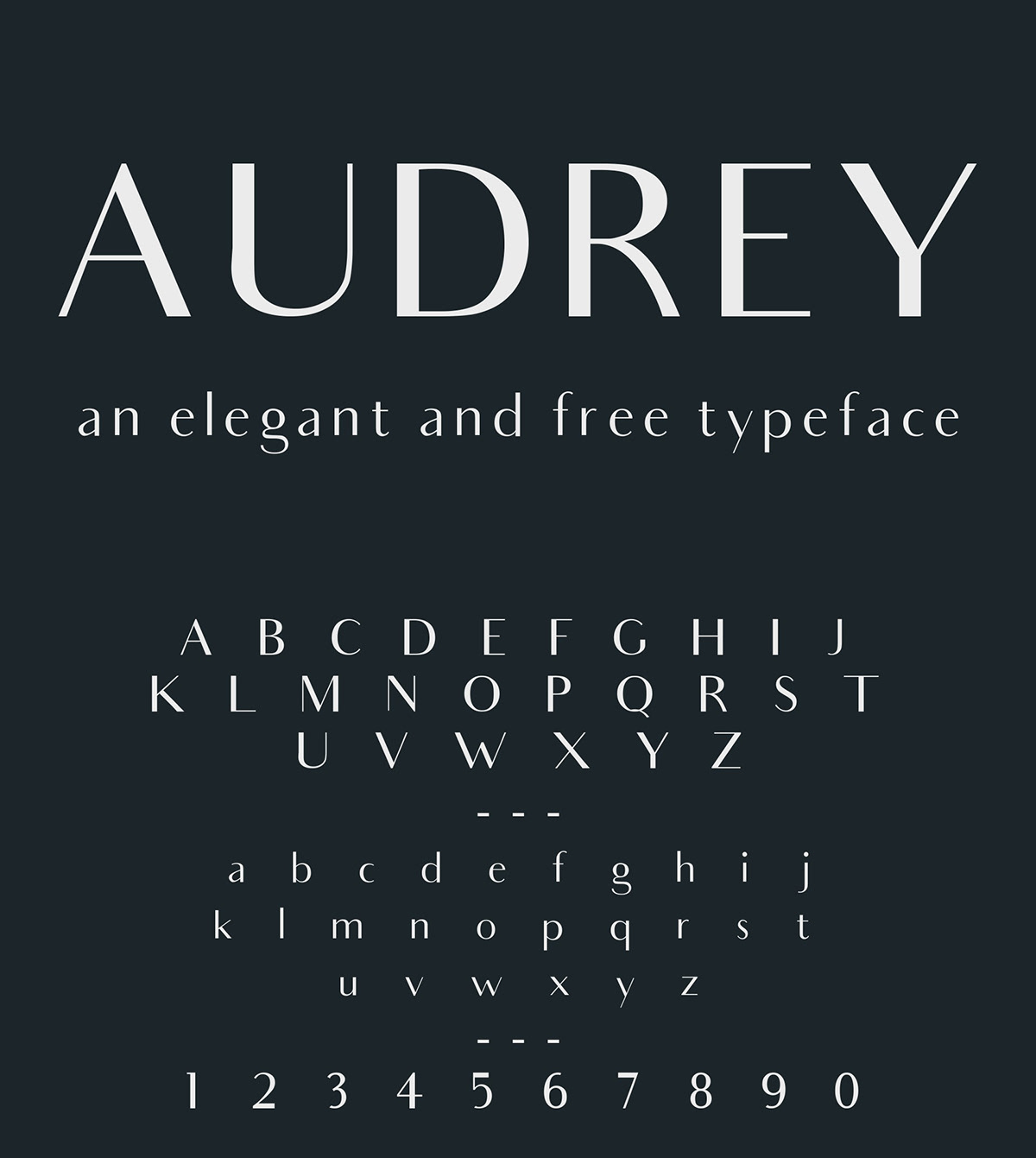
an elegant and free typeface
ELIANTO
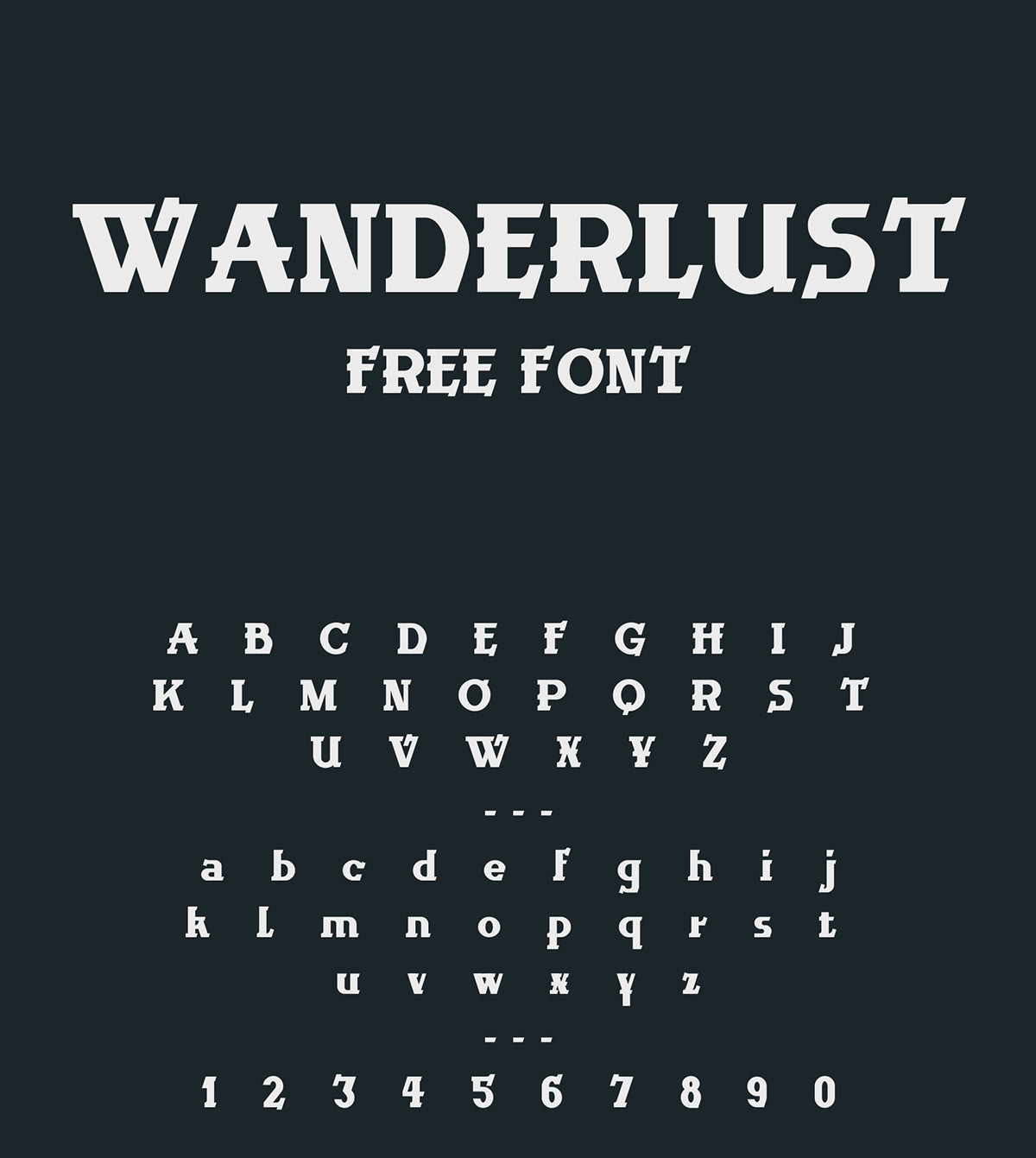
HACKNEY
HAND-PAINTED FONT
AGANÈ TYPEFACE
MALER
TYPEFACE
SORIA
NOVEAU TYPEFACE
ANDERS
MOSK
TYPEFACE
BILLY
CUNIA
MARAGSÂ
A DISPLAY TYPEFACE
RELANCER
SHRIMP
OFERTA DO DIA
TYPEFACE
BREAK
FREE TYPEFACE
FREE FONT
FREE TYPEFACE